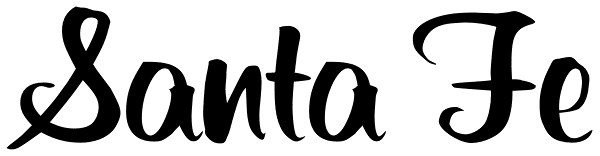
Santa Fe Pro
Santa Fe is a profonts script typeface family supplied in the new OpenType Pro font format. Santa Fe contains six styles as light, medium, bold and the corresponding italics. The character set covers about 500 glyphs for the complete Latin character...